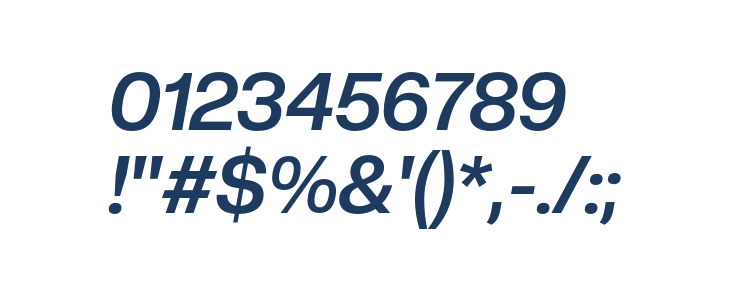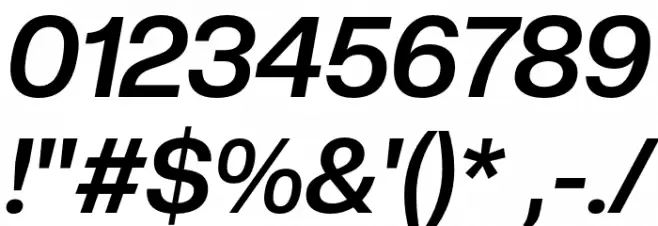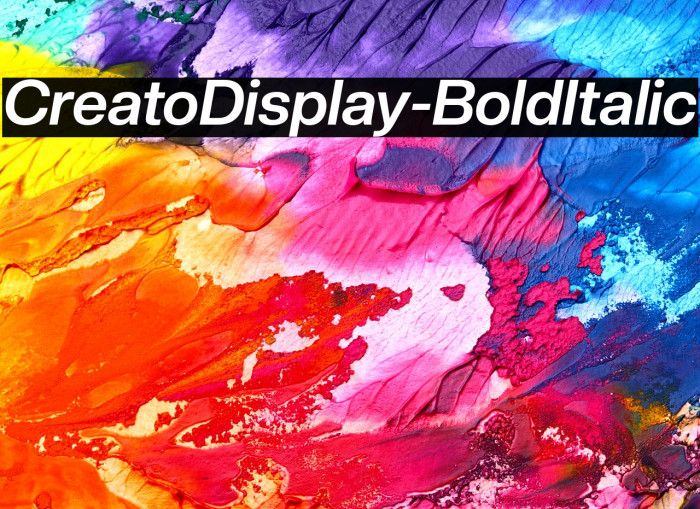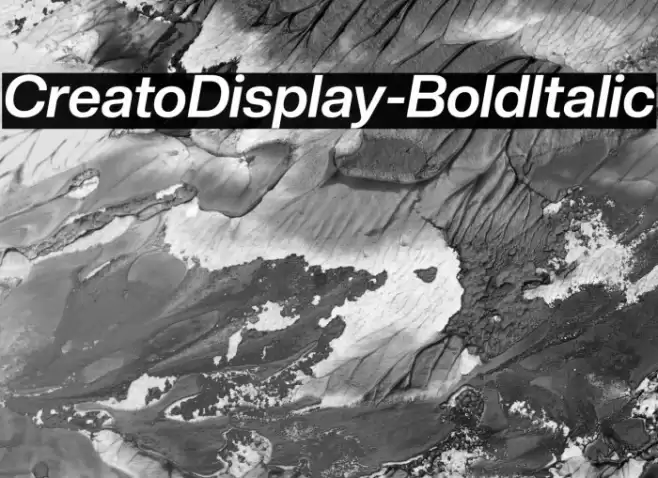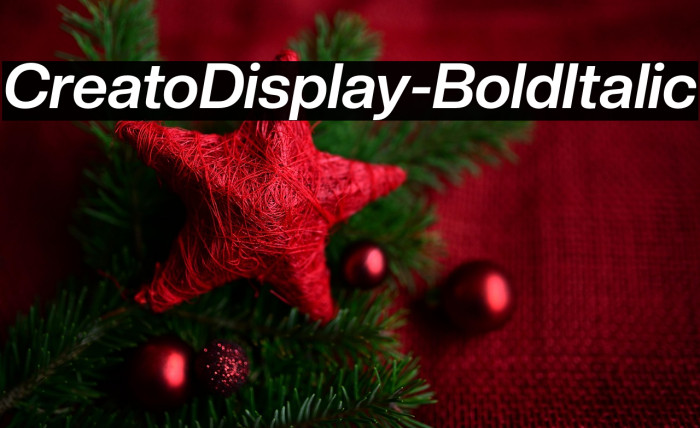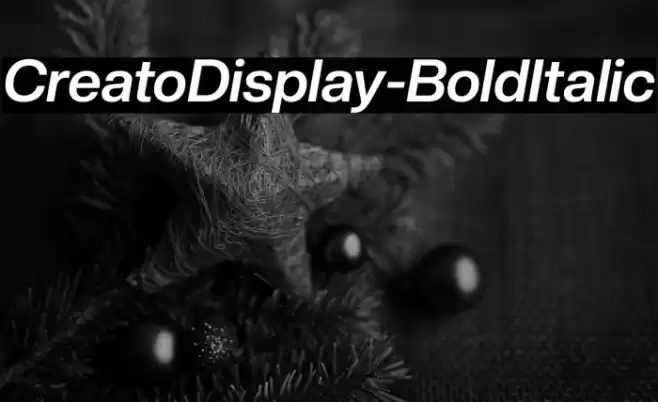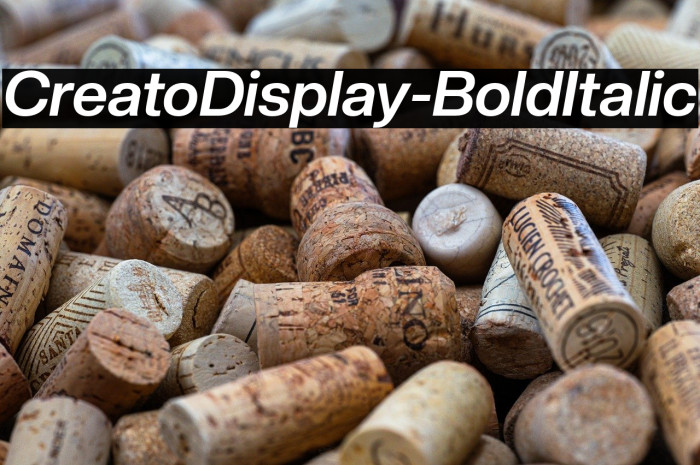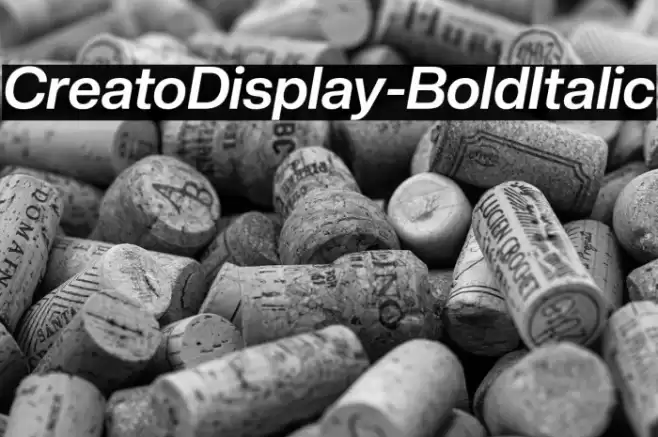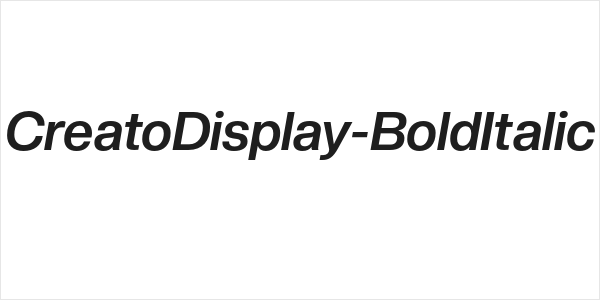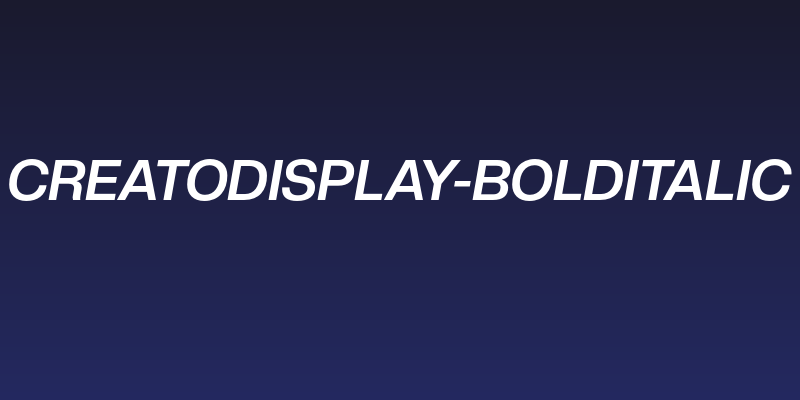
CreatoDisplay-BoldItalic Font
CreatoDisplay-BoldItalic Description
This font features a bold and italicized style, characterized by its strong and dynamic appearance. The letters are slightly slanted, giving a sense of motion and energy. The strokes are thick and consistent, providing a robust and impactful look. The font maintains a clean and modern aesthetic, making it suitable for various design applications. Its uppercase and lowercase letters are well-proportioned, ensuring readability and visual appeal. The numerals and special characters are designed to complement the overall style, maintaining the same bold and italicized characteristics.
| Proposed Projects | Ideal for headlines, branding, advertising, and any project requiring a strong visual impact. |